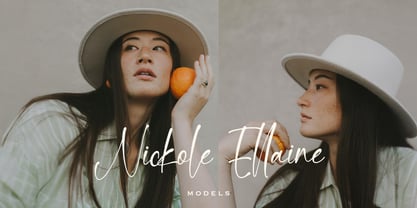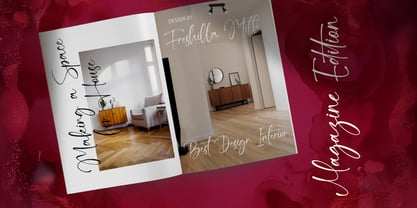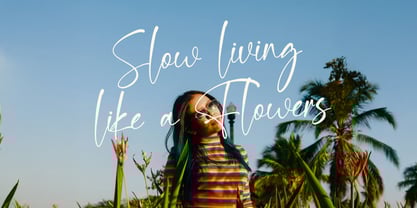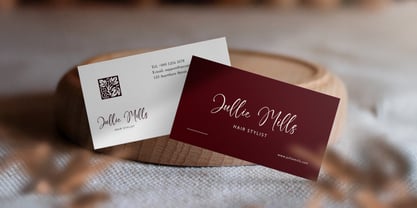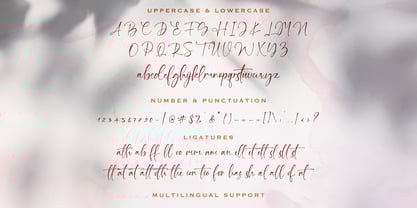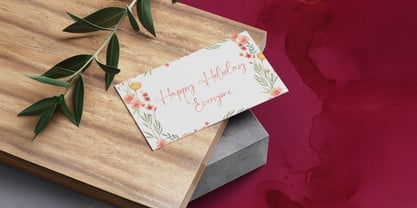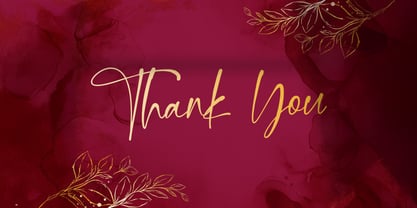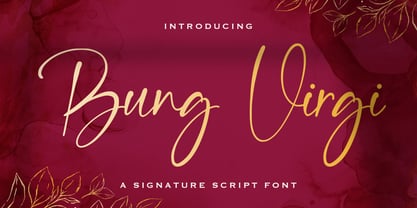
The Bang Virgi Font Family was designed by Virgiawan Listanto and published by Stringlabs Creative Studio. Bang Virgi contains 1 styles. More about this family
Bang Virgi is a stylish and expressive signature script font, crafted to emulate the fluid strokes of an authentic handwritten signature. With its smooth curves, elegant ligatures, and natural flow, it brings a modern, personal touch to any design.
It’s both charming and professional, perfect for making your branding feel more human and high-end.
Let Bang Virgi add a confident and graceful handwritten touch to your creative projects.